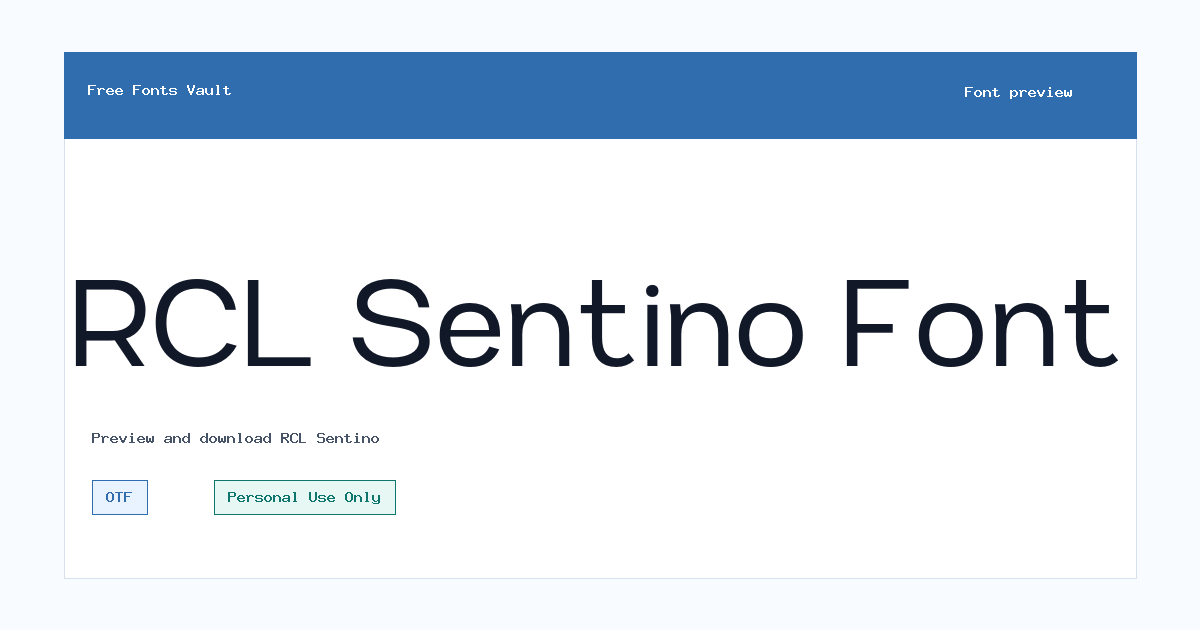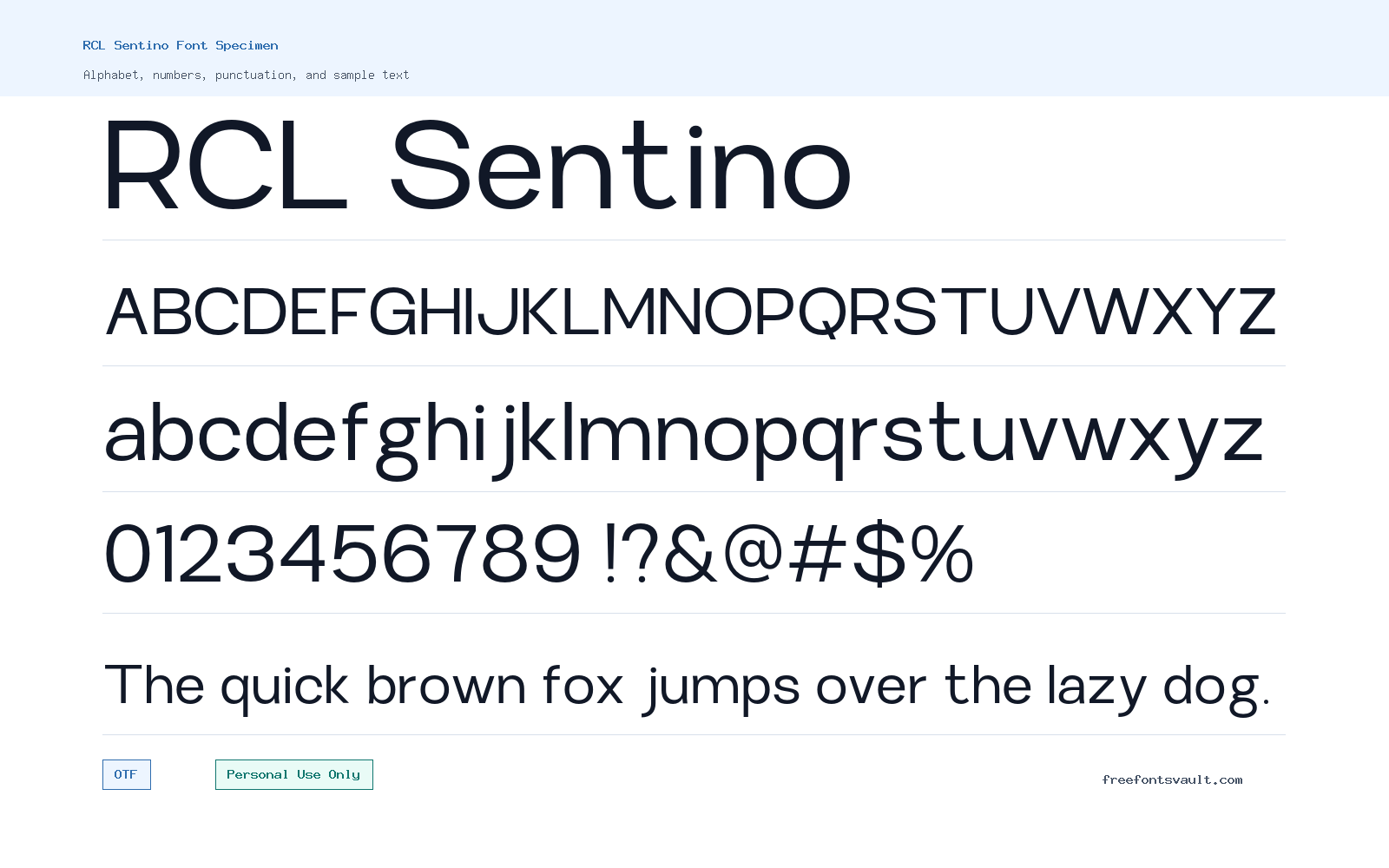
RCL Sentino
- Designer Bakhrudin Ja'far
RCL Sentino is a sans serif font with a clean, modern feel, built for short pieces of display text where shape and spacing matter as much as the words themselves.
About RCL Sentino
RCL Sentino works best when you give it room to stand out. The regular style has a straightforward sans serif structure, which makes it useful for title treatments, brand mockups, social graphics, posters, and presentation covers. It is not a large font family with multiple weights on this download page, so the Regular style should be treated as the main voice of the typeface. Use the preview tool to test your own words, especially if you plan to use it for a name, label, badge, or logo concept.
For logo work and branding drafts, RCL Sentino can be a useful starting point when you want a simple sans serif look without heavy decoration. Try it in uppercase, title case, and short lowercase words before deciding how it fits the project. For posters and web mockups, it should be easier to manage in headings, hero text, navigation samples, and callouts than in long paragraphs. If you are designing a full layout, pair it with a calm body-text font rather than another strong display face, so the design does not feel crowded.
- Sans serif design suited to short headings, logo drafts, posters, and mockups
- Practical for testing brand names, display text, and compact visual messages
- Logo concepts and brand-name mockups
- Website hero headings and interface mockups
- Social media graphics and presentation covers
- Labels, badges, and short promotional text
Is RCL Sentino good for body text?
It is better to test RCL Sentino as a display font for headings, names, posters, and short text. For long paragraphs, pair it with a readable body font.
Who designed RCL Sentino?
The font is credited to Bakhrudin Ja'far.